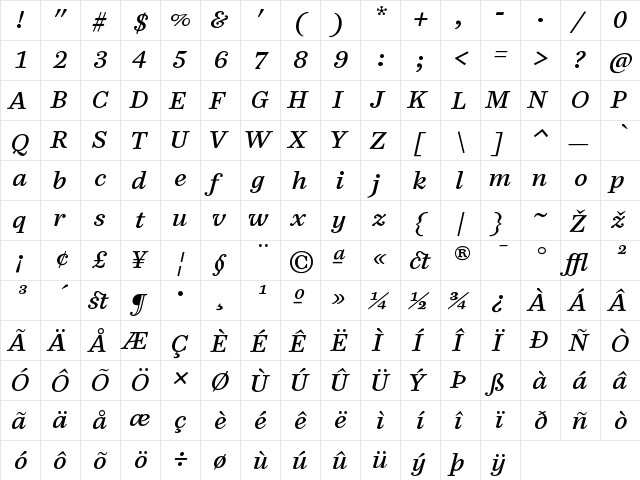
PB6TTP-ItalicTF Regular
Design Context for PB6TTP-ItalicTF Typeface
PB6TTP-ItalicTF is a composed and adaptable typeface that performs quietly and consistently across a wide range of design contexts. The slanted form adds forward momentum and visual energy.
Pro Tip: Try PB6TTP-ItalicTF for annotation and caption copy alongside an upright companion — the contrast in angle creates a dynamic but ordered typographic system.